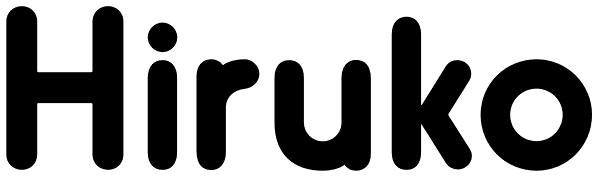
Hiruko
With 15 different styles and support for all sorts of languages, Hiruko is the open and easy sort of font that can be used in almost any situation, as long as you want your message to be readable. Smooth, simple and clear, Hiruko takes inspiration...